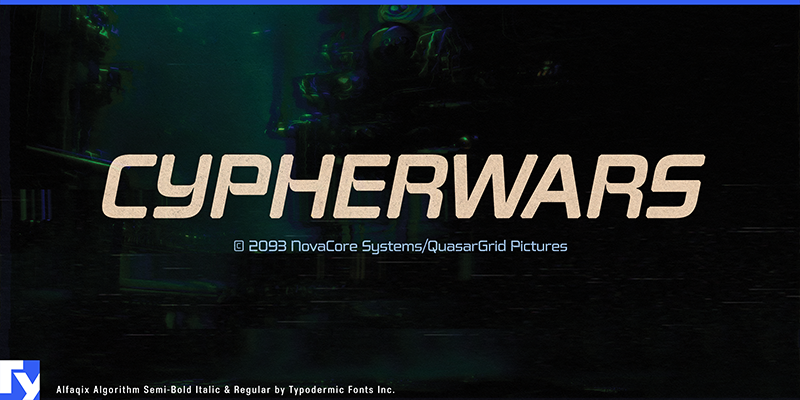
Alfaqix
Typodermic Fonts · Regular · Alfaqix
Alfaqix
Font familyAlfaqix
CreatorTypodermic Fonts
Alfaqix is a collection of modular, techno-inspired typefaces exploring different facets of futuristic geometry. Across the series, squared forms, sharp chamfers, rounded terminals, and distinctive mechanical notches create a family of designs that feel engineered, digital, and unmistakably modern. Drawing inspiration from data displays, LCD segments, servo mechanisms, and Y2K-era futurism, the Alfaqix families are well suited to interfaces, dashboards, tech branding, motion graphics, and editorial layouts that call for a clean high-tech voice. With broad support for Latin-based European languages, Alfaqix delivers precise, forward-looking typography for contemporary design. These fonts include a license that allows free commercial use: sometimes referred to as a desktop license. This allows you to install the fonts on a computer and use them to create posters, web graphics, game graphics, t-shirts, videos, signs, logos and more. Read the license agreement for details. If you'd like to embed this font in an app, on the web or anything that's not covered by the desktop license agreement, visit the link below. You'll find distributors who offer different types of licenses, or you can contact me for help. https://typodermicfonts.com/?s=alfaqix These free fonts are part of a larger font family. Check out the rest of the family through the link above.